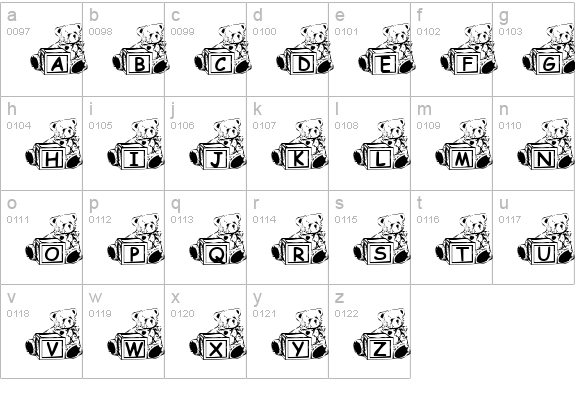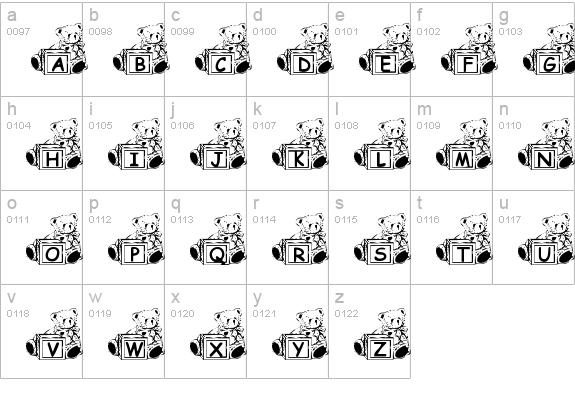
Summer's Bear Blocks is a charming and playful font that will add a touch of whimsy to any design project. This fun display font features adorable bear illustrations incorporated into each letter, making it perfect for children's books, posters, and greeting cards. The bold and chunky letterforms give Summer's Bear Blocks a strong presence, while the cute bear motifs bring a sense of joy and warmth to the overall design. What's even better is that Summer's Bear Blocks is available for free download at FontsMarket.com! This means you can easily access this delightful font and start using it in your creative projects without any cost. Whether you're a professional designer or a hobbyist looking to spruce up your creations, Summer's Bear Blocks is a fantastic choice that will bring a smile to anyone's face. Download it today and let your imagination run wild with this adorable and unique typeface.